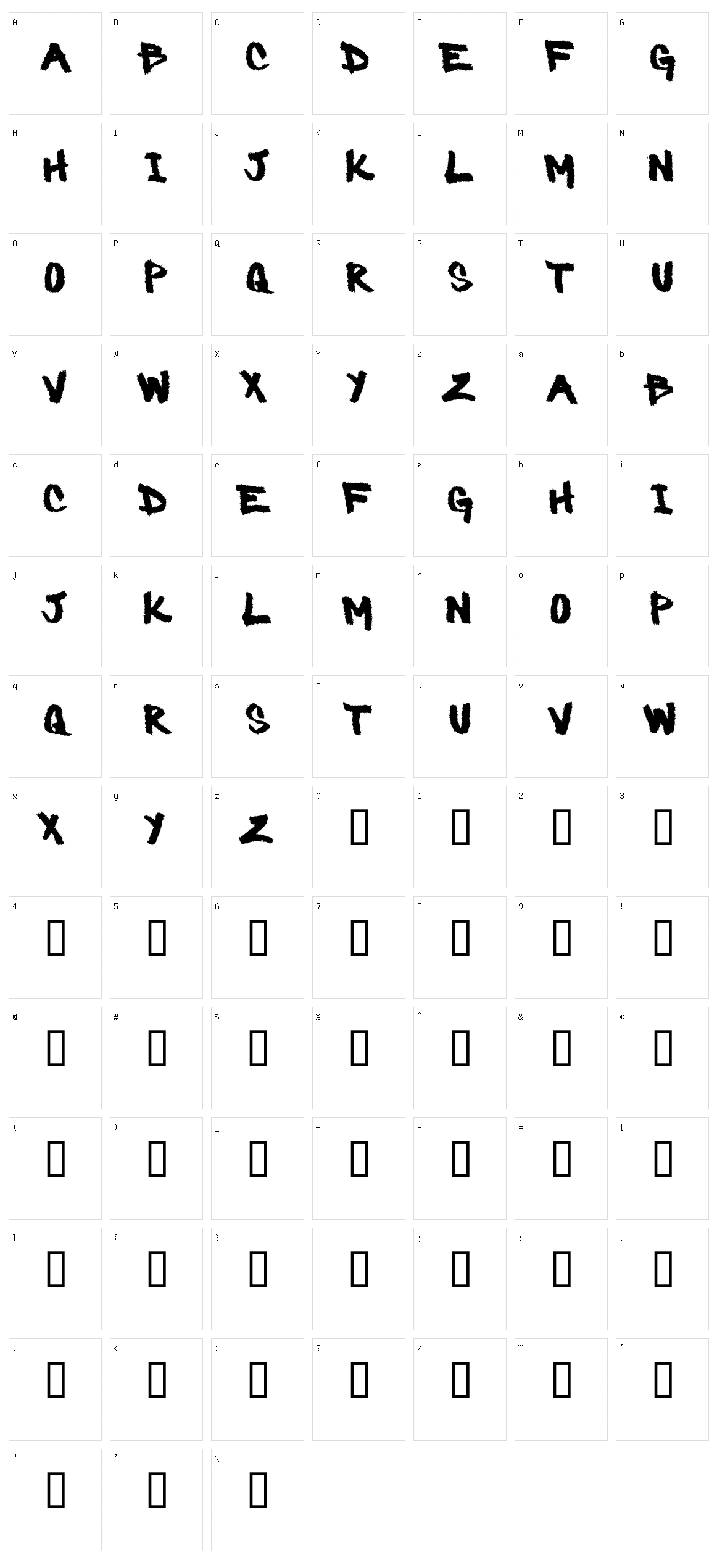
The free font Barbaric is carefully designed by Font Monger, showcasing a thoughtful balance of creativity and usability and falls under the Trash font style. When you download the ZIP file, it contains only 231.92 KB of font files, making it lightweight and quick to download. Please review the license details below to understand permitted usage and distribution rights. If license information is not available, we recommend using this font for personal projects only or contacting the author directly for commercial usage permissions.